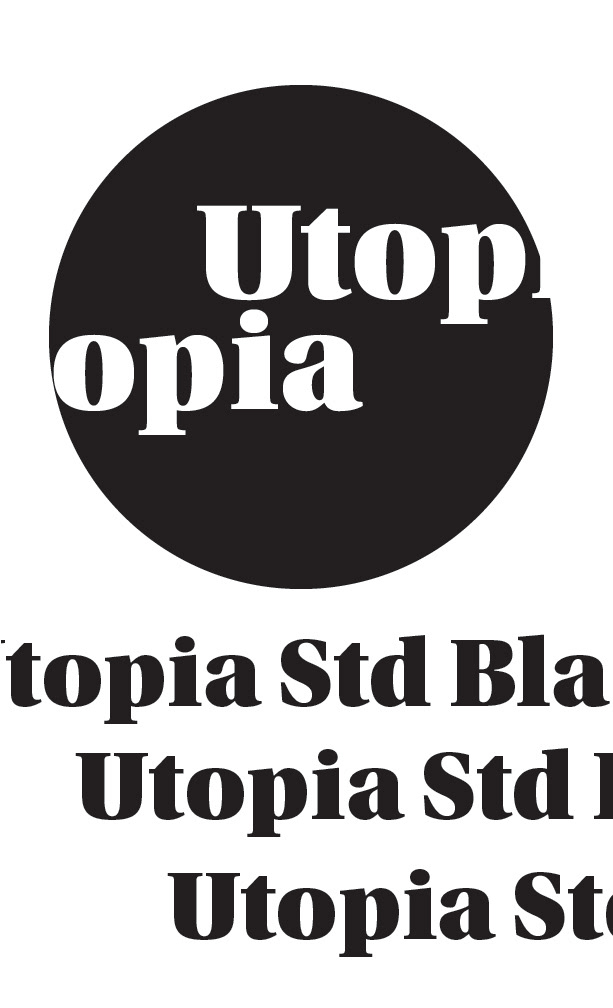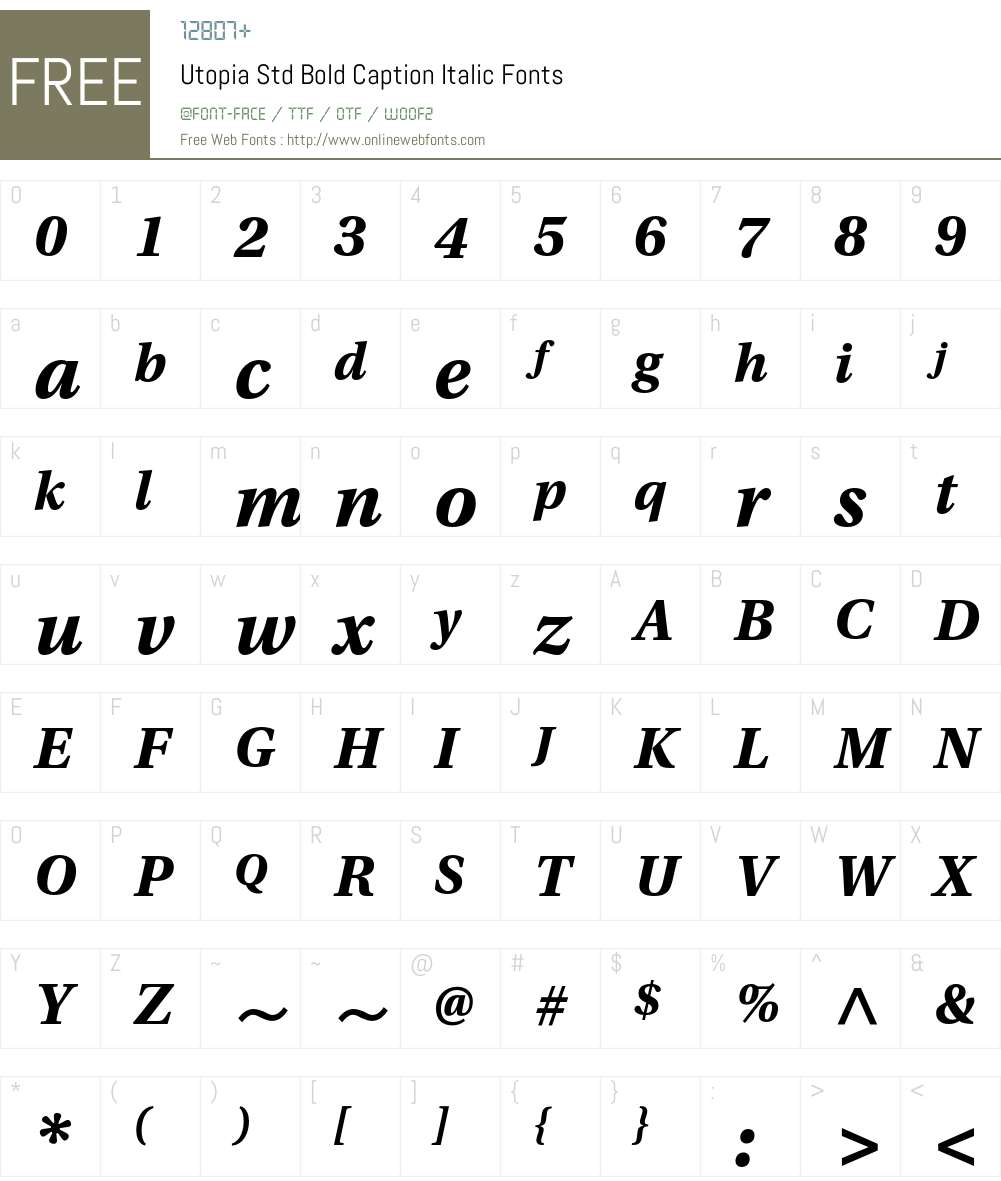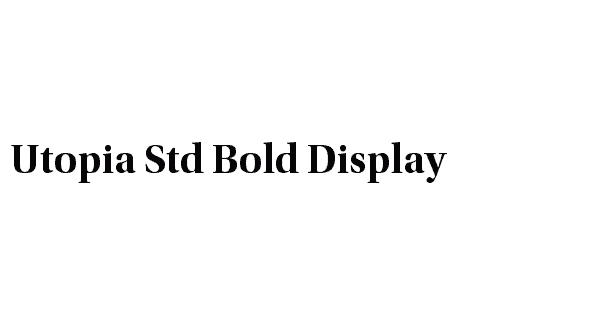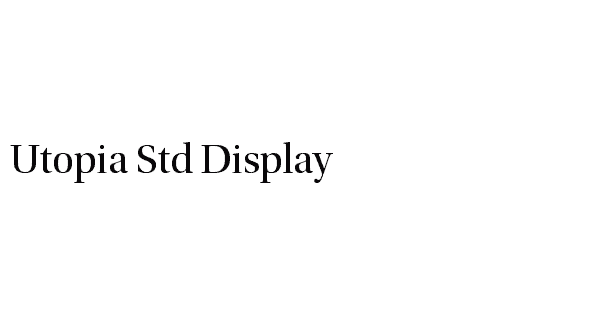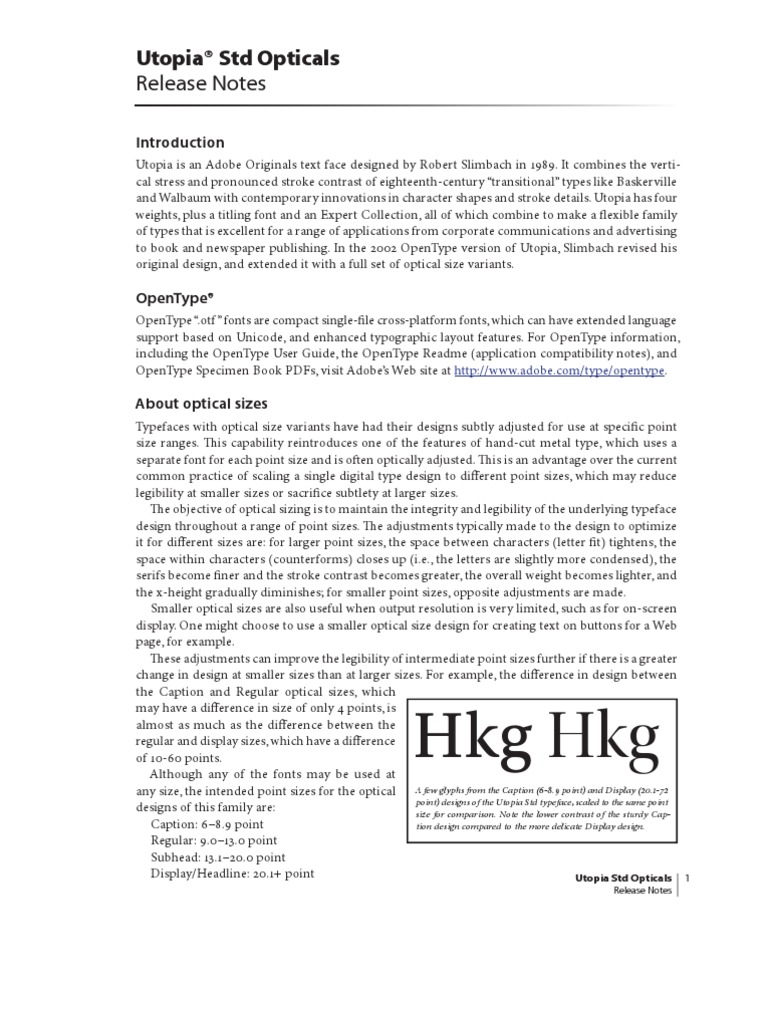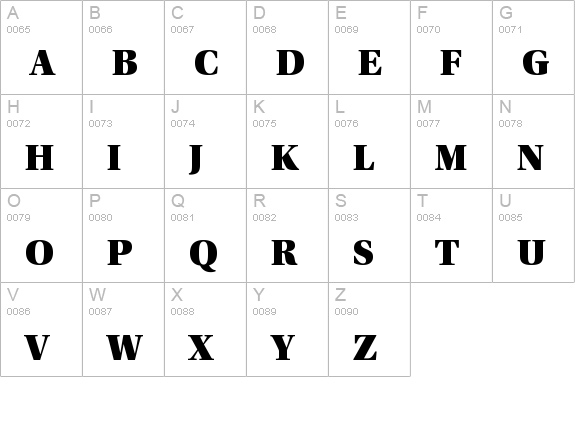
Utopia Std Font
A serif typeface with 25 styles available from adobe fonts for sync and web use. You can find more information about this. Utopia std is a serif font family.
Enter you text or numbers into a panel below. This font is in the caption style. This typeface has twenty five styles and was published by adobe.